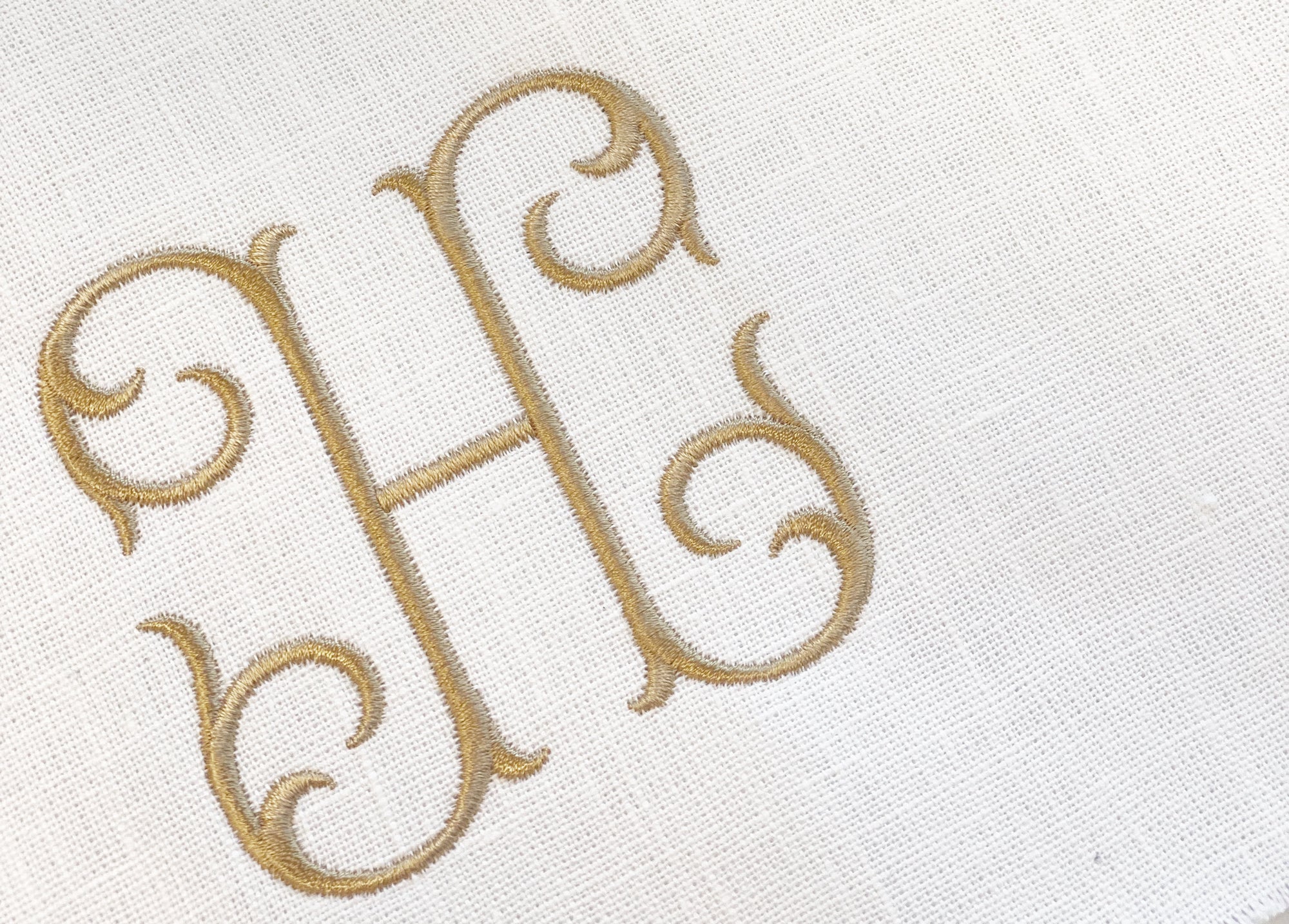
Single Monogram Couture Font for Embroidery
Our Single Monogram Couture Font is a beautiful collection of graceful single letters with 2 designs for each letter of the alphabet (a total of 52 files). This includes:
• Satin-stitch designs
Perfect for embroidery, the careful attention in the digitization of each design makes personalization unique and beautiful!